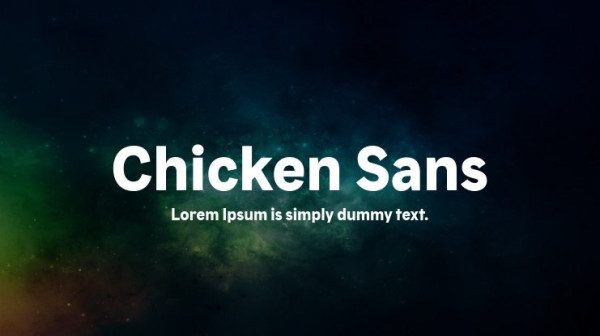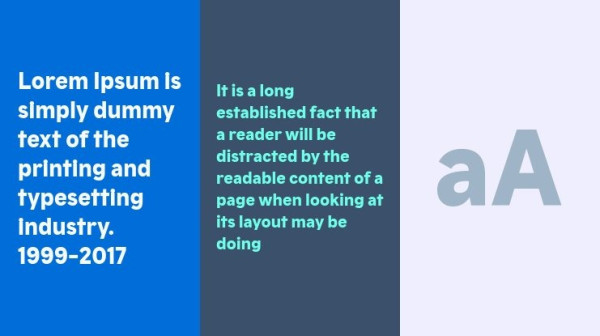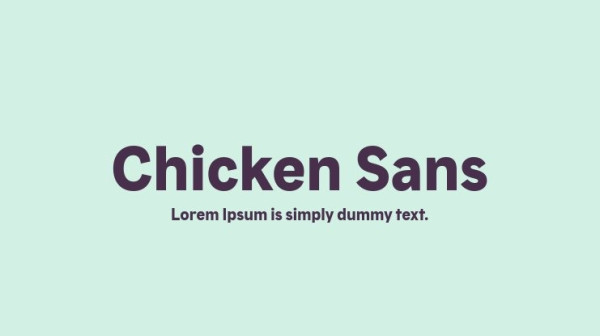
Chicken Sans Font
Chicken Sans Font, is a sans serif  stunning when combined or separately. This sans serif font style is legible and stunningly designed.